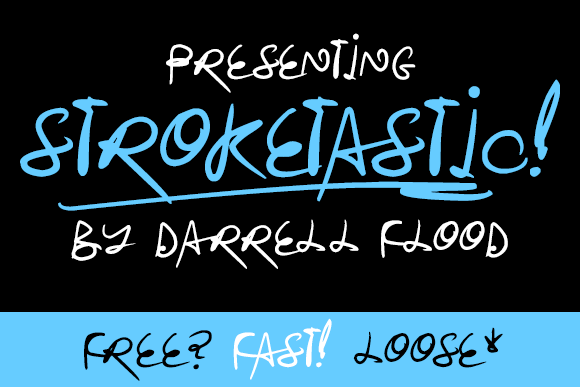
Stroketastic Font
About Stroketastic Font
An energetic, expressive font, in a loose handwriting style. Perfect for adding a fun and fast touch to your designs.